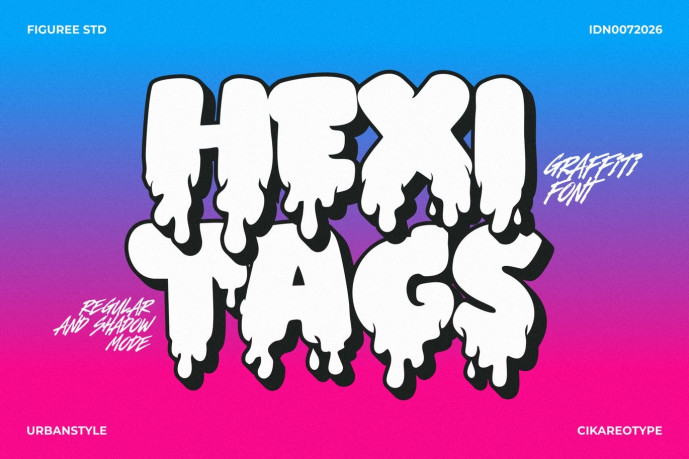
Hexitags – 3D Drip Graffiti Font
Hexitags – 3D Drip Graffiti Font is a bold display typeface created for designs that need depth, movement, and strong visual impact. Its graffiti-inspired letterforms combine energetic shapes with dripping details, giving headlines and titles a raw, expressive appearance.
The font package includes two coordinated styles: the main Hexitags style and Hexitags Shadow. The regular version provides the core graffiti lettering, while the shadow version adds a dimensional layer that helps text appear raised from the background. Use them separately or combine both styles to build layered 3D typography for posters, event graphics, cover artwork, digital content, and large-format layouts.
Hexitags includes uppercase and lowercase letters, allowing you to create varied compositions without being limited to one letter case. Numbers, punctuation, and symbols are also included, making the font suitable for dates, prices, short messages, schedules, and supporting information. Multilingual support helps designers create text for projects intended for audiences across different languages.
The heavy structure works especially well for short headlines, display text, names, and attention-grabbing phrases. Its exaggerated shapes remain noticeable in busy compositions, while the dripping elements introduce an organic spray-painted character. Apply contrasting colors, outlines, shadows, gradients, or textures to explore different visual directions.
Key Features
Uppercase and lowercase characters
Numbers, punctuation, and symbols
Multilingual language support
Regular and shadow font styles
Built-in dripping graffiti details
Layered 3D typography possibilities
Suitable for print and digital layouts
Strong visibility for large display text
Easy to combine with textures and graphic effects
Why Designers Love It Designers choose Hexitags when a project requires typography that functions as the main visual element. The included shadow style reduces the need to manually construct a dimensional text effect, helping speed up the layout process while keeping the letter shapes consistent.
The two styles provide flexibility for both flat and layered compositions. Use the regular font for clean graffiti lettering, add the shadow font for depth, or combine them with outlines and offset colors for a more complex result.
Hexitags can be used for event posters, music artwork, video titles, game graphics, stickers, murals, social media posts, advertisements, packaging graphics, and promotional headlines. Its complete character set also makes it practical for projects that require more than a single title.